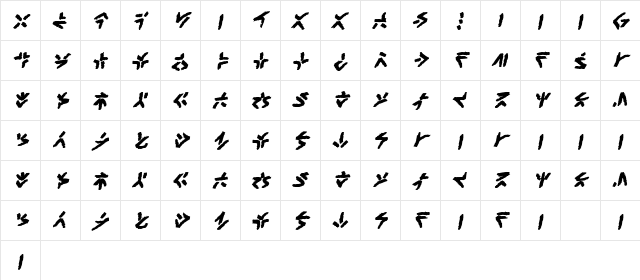
XenoTribal BB Bold Free Font
XenoTribal BB Bold
Foundry: Nate Piekos. Blambot.com
Designer: Nate Piekos
Design Context for XenoTribal BB
XenoTribal BB is a composed and adaptable typeface that performs quietly and consistently across a wide range of design contexts. Its bold stroke weight gives it real presence on the page.
Who designed the XenoTribal BB Bold font?